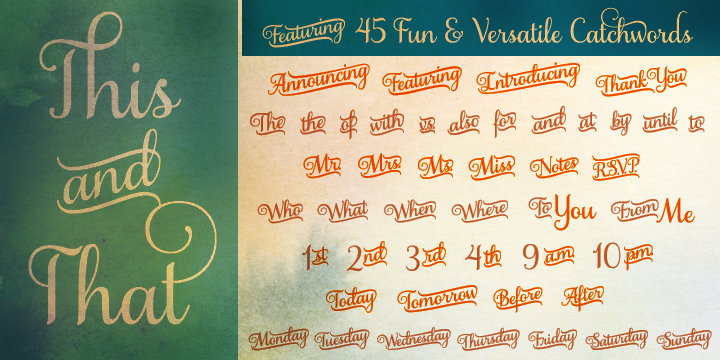
Samantha
by Laura Worthington
Samantha Font Family was designed by Laura Worthington and published by Laura Worthington. Samantha contains 6 styles and family package options. More about this family
About Samantha Font Family
Samantha is a bright and cheerful font based on pointed-pen lettering and featuring slightly condensed characters and a measured rhythm. Samantha is available in upright or italic variants, each with regular and bold weights and features over 1,100 alternates and swash characters that vary in size and complexity. Samantha includes 60 ornaments and 45 catchwords, lining numerals and oldstyle and swash numerals. See what’s included! Upright, Upright BoldItalic, Italic Bold *NOTE* Basic versions DO NOT include swashes, alternates or ornaments These fonts have been specially coded for access of all the swashes, alternates and ornaments without the need for professional design software! Info and instructions here: http://lauraworthingtontype.com/faqs/
About Laura Worthington
A graphic designer since 1997, my focus has moved, through serendipity and lifelong fascination, to type design by implementing the craft of hand lettering. I also create a diverse selection of illustrative work. My love of letters began when I was nine years old. I learned italic printing in elementary school, I pursued it further, teaching myself different calligraphic styles from any book I could find on the subject. In college, a professor pointed me to pages in a design book's lettering section, and I swooned. Such an artistic and spontaneous task, with pen or brush pen or steel nib pen in hand, yet so controlled, as each letter perfectly approaches or intertwines with the next, in a flowing precision. An ageless craft yet, in the right hands, as effective in identity or messaging as the most modern method, as it subliminally adds a strongly human, and thus personal, element. I knew to my core that I'd found my lifework. In September of 2010, I transitioned from freelance graphic design to typeface design. The intent of my typefaces is to create something unique and well designed, filling a niche in the vast marketplace of fonts, and offering several design possibilities through the addition of alternates, swashes and ornaments. I love creating letters and I aim to demonstrate that passion through my designs. My hope is that my typefaces will assist you in your creative endeavors. Visit my website at www.LauraWorthingtonType.com to view more of my work, or follow me on Twitter: @L_Worthington